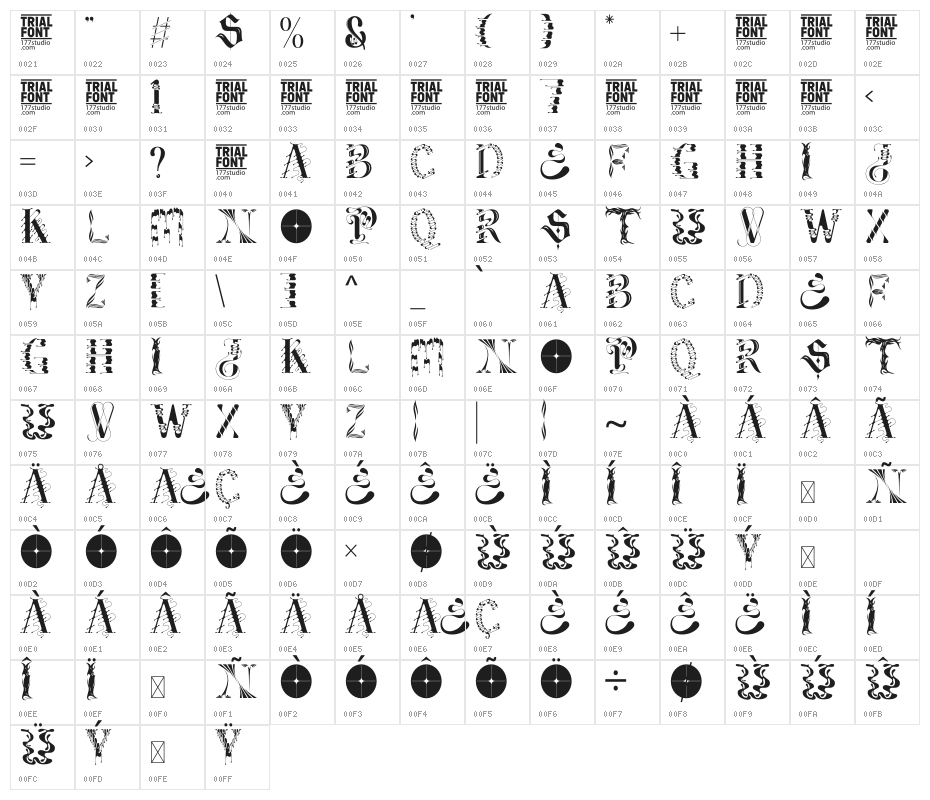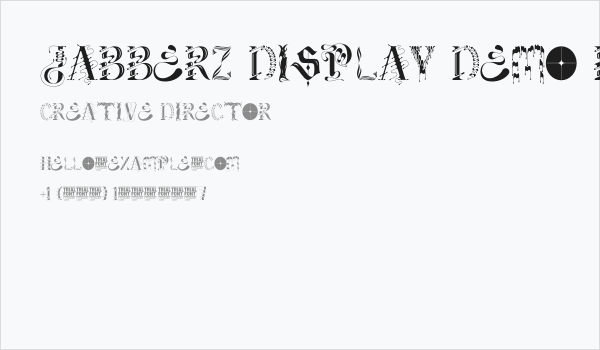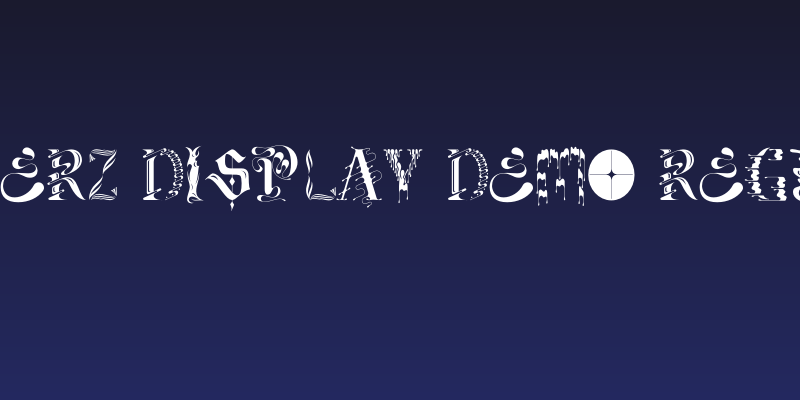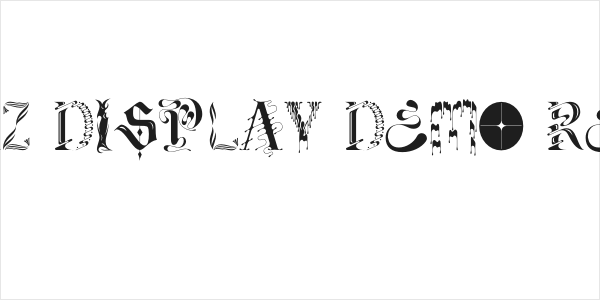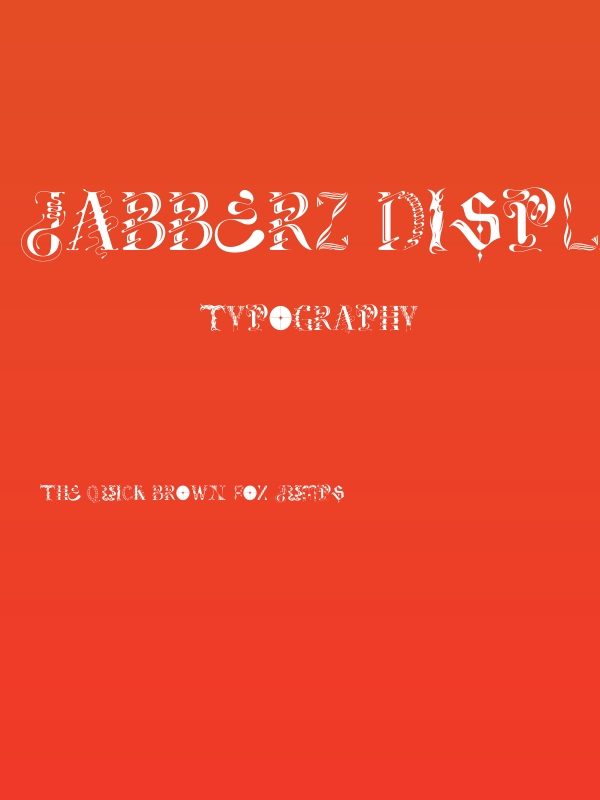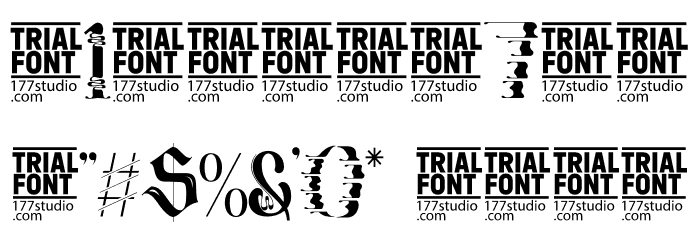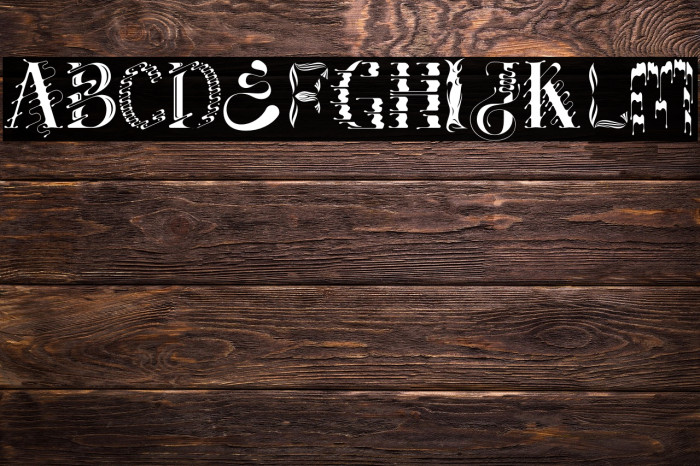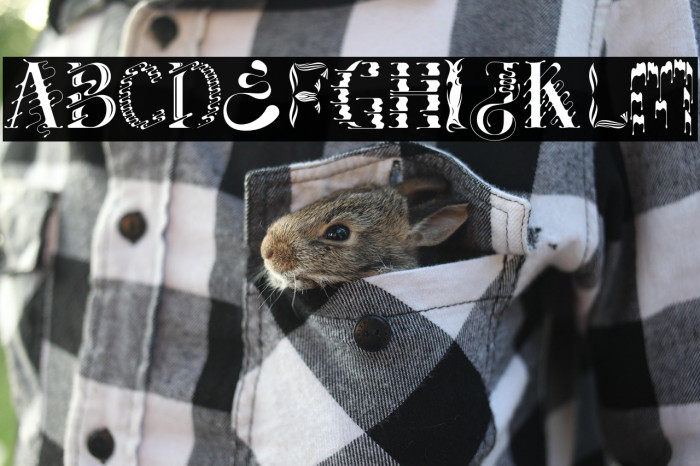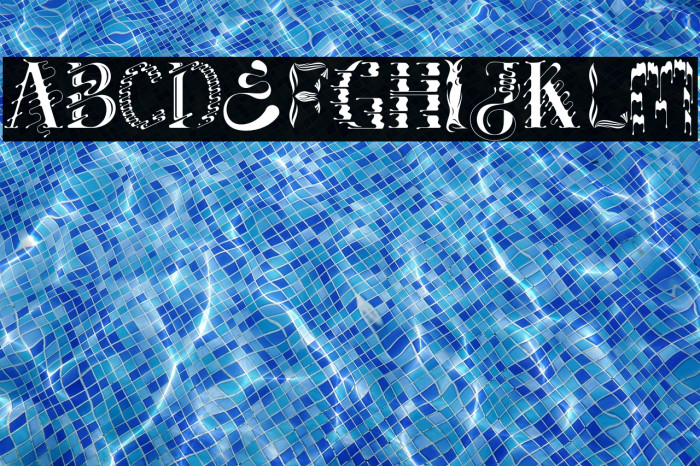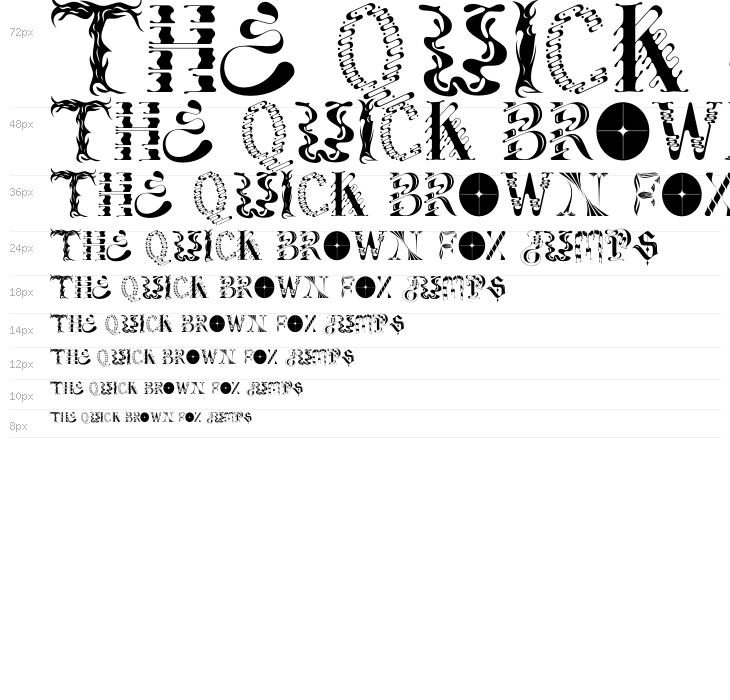
Jabberz Display Demo Regular Font
This font is a highly decorative and artistic typeface that combines elements of modern design with a playful twist. Each character is uniquely styled with intricate patterns, swirls, and geometric shapes, creating a visually striking appearance. The uppercase letters feature bold and elaborate designs, while the lowercase letters maintain a consistent theme with slightly less complexity. The numbers and special characters are equally ornate, making this font ideal for creative projects that require a distinctive and eye-catching look. The overall aesthetic is both whimsical and sophisticated, making it suitable for a variety of artistic applications.
| Proposed Projects | Ideal for posters, album covers, branding, and any project that requires a bold and artistic touch. |